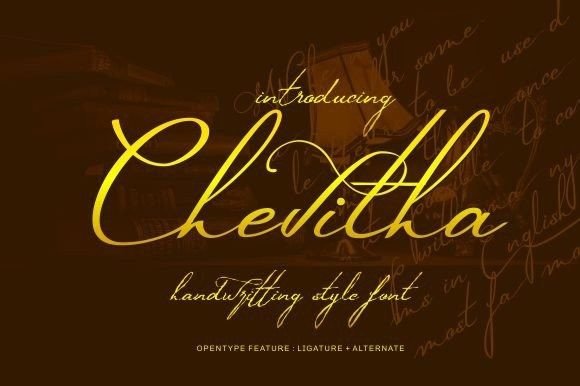
Step into a world of charm and playfulness with the enchanting Chevitha Font! Inspired by the timeless art of children's correspondence, this script font will inject a touch of whimsy into your designs. Each character dances across the page, capturing the essence of a child's imagination.
With its hand-drawn aesthetic, Chevitha brings warmth and personality to every word. It's perfect for crafting invitations that will make your little ones beam with joy. Picture the delight on their faces as they receive invitations adorned with their names, written in the charming script of Chevitha.
Unlock the endless creative possibilities of Chevitha. It's not just for invitations! This versatile font adds a touch of enchantment to logotypes, video titles, greeting cards, and more. Its playful spirit will elevate your designs, evoking a sense of nostalgia and wonder.
Chevitha is the perfect choice for those who yearn for a unique and captivating font. Its ability to evoke emotions and create lasting impressions makes it a must-have for any designer's toolkit. Let the magic of Chevitha ignite your imagination and transform your designs into enchanting masterpieces!